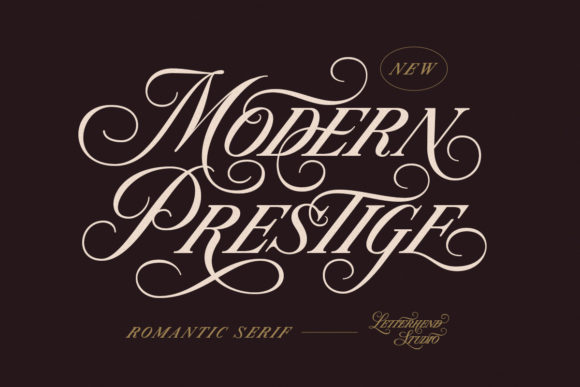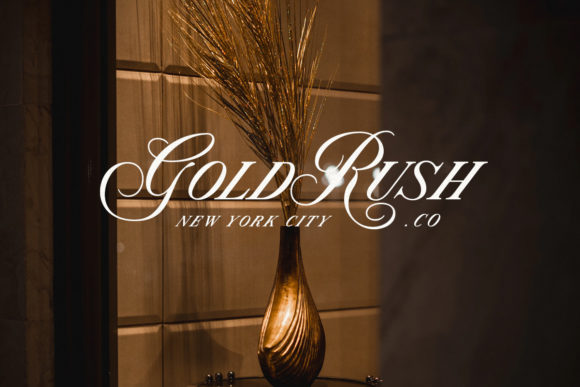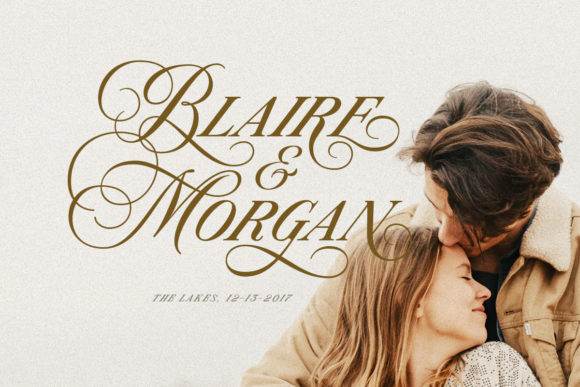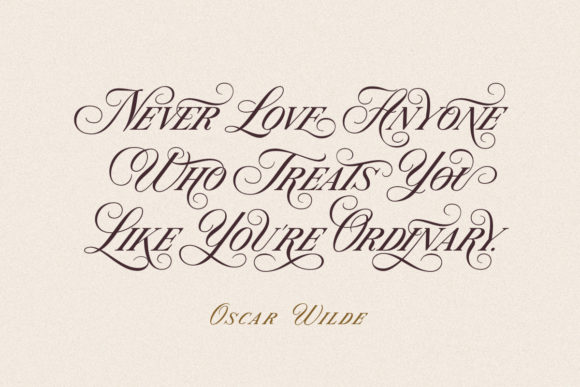
Modern Prestige Font
About the Modern Prestige Font
Elevate your designs with Modern Prestige Font, a font that combines sophistication with readability. Modern Prestige is a beautiful and refined script font. It has a classy, elegant and modern look that can be used for logos, branding, invitations, stationery, wedding designs, social media posts, and much more!
Modern Prestige excels in applications requiring a touch of sophisticated elegance, such as logos, branding materials for luxury goods, or high-end invitations. Its refined strokes are ideal for short headlines and impactful statements, making it perfect for posters or social media graphics. However, its intricacy makes it unsuitable for extended body text or UI elements where readability is paramount.
Consider pairing Modern Prestige with a clean sans-serif like Montserrat for a contemporary feel, or a classic serif such as Garamond for a more traditional balance. For a bolder contrast, a geometric sans-serif like Futura could add modern impact. These pairings provide strong visual anchors, complementing the script’s inherent grace without overwhelming it.
The font’s overall personality is best described as elegant and refined, conveying a sense of high quality and understated luxury. Avoid using it where a more approachable or playful tone is needed.
Modern Prestige Font Usage Examples
Modern Prestige Font Example